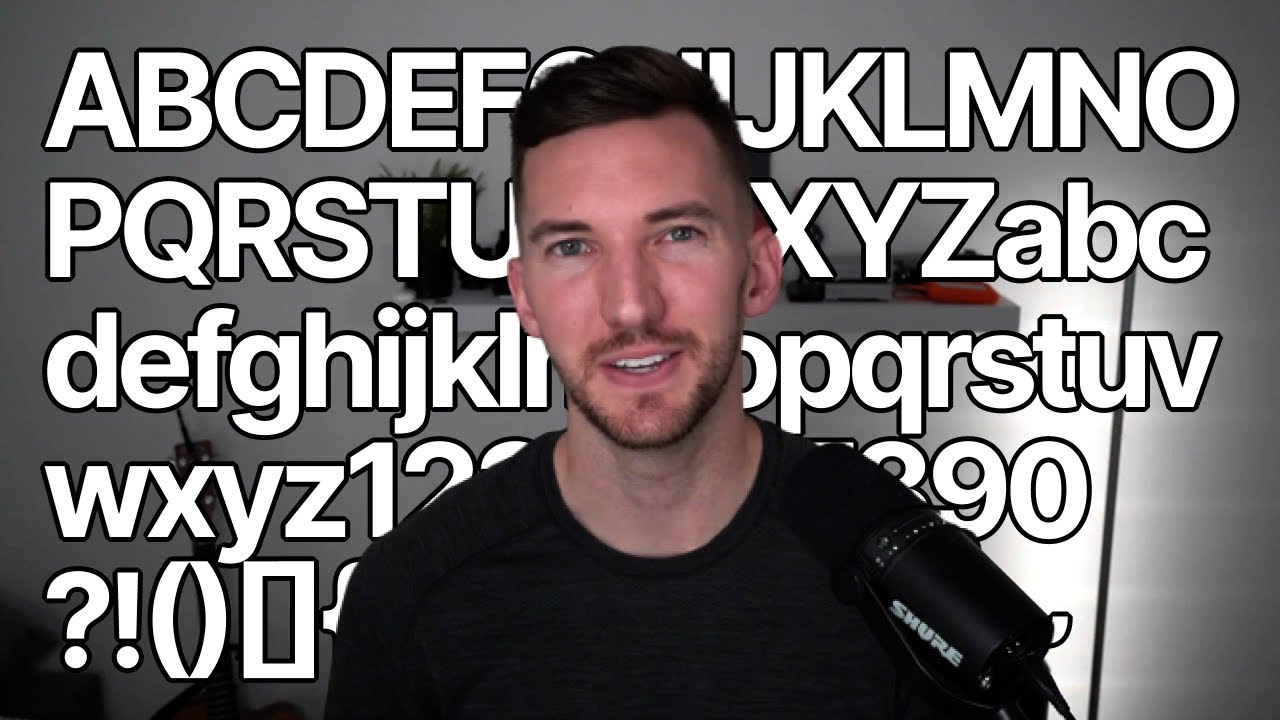
Basic Web Fonts
Basic Handwriting Fonts Free Download Onlinewebfonts Com Well organized and easy to understand web building tutorials with lots of examples of how to use html, css, javascript, sql, php, python, bootstrap, java and xml. In order to help out, we’ve curated a list of the 20 best html web fonts for your website. web safe fonts are fonts that come pre installed across most operating systems. this ensures that the fonts render as intended when accessed from various devices and browsers.
Basic Font Download Here are 24 of the best fonts for websites to reinforce your brand’s identity and effectively communicate your message. 1. inter. font type: sans serif. inter is a sans serif typeface designed by former figma designer rasmus andersson. Discover the best html fonts and css fonts to use for your website, so you can be sure your text will display properly for all visitors. Making the web more beautiful, fast, and open through great typography. In the first article of the module, we explored the basic css features available for styling fonts and text. in this article we will go further, exploring web fonts in detail.
Basic Web Fonts Making the web more beautiful, fast, and open through great typography. In the first article of the module, we explored the basic css features available for styling fonts and text. in this article we will go further, exploring web fonts in detail. Choosing the right font is key for effective web design. these 11 popular fonts are loved by designers because they balance visual impact and versatility. Web safe fonts (like arial, times new roman, georgia) are fonts that are pre installed on the vast majority of computer operating systems. web fonts (like those from google fonts) are hosted on a server and are downloaded by the user’s browser when they visit a website. Getting started with html fonts is easy! here, we show you how to do it and even how to style your font selections. Explore 19 best fonts for websites by category. get tips on pairing, performance, and accessibility to enhance your design in 2026 and beyond.